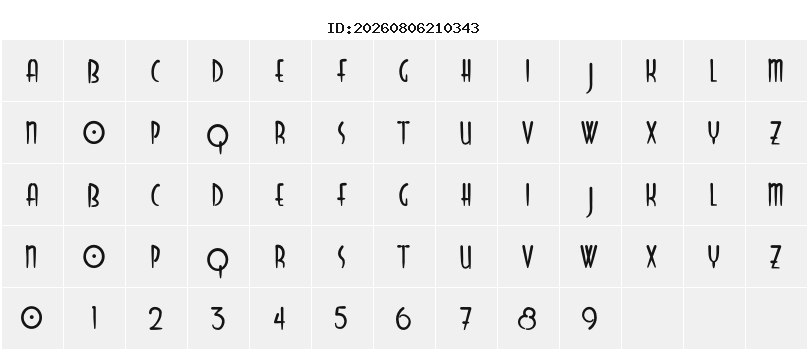
Odyssey Preview
• Font Name: Odyssey
• Designer: Gary David Bouton
About Odyssey.otf
Odyssey.otf is a modern, elegant sans-serif font designed for ultimate readability and visual harmony. Perfect for branding, headlines, web design, and print materials.